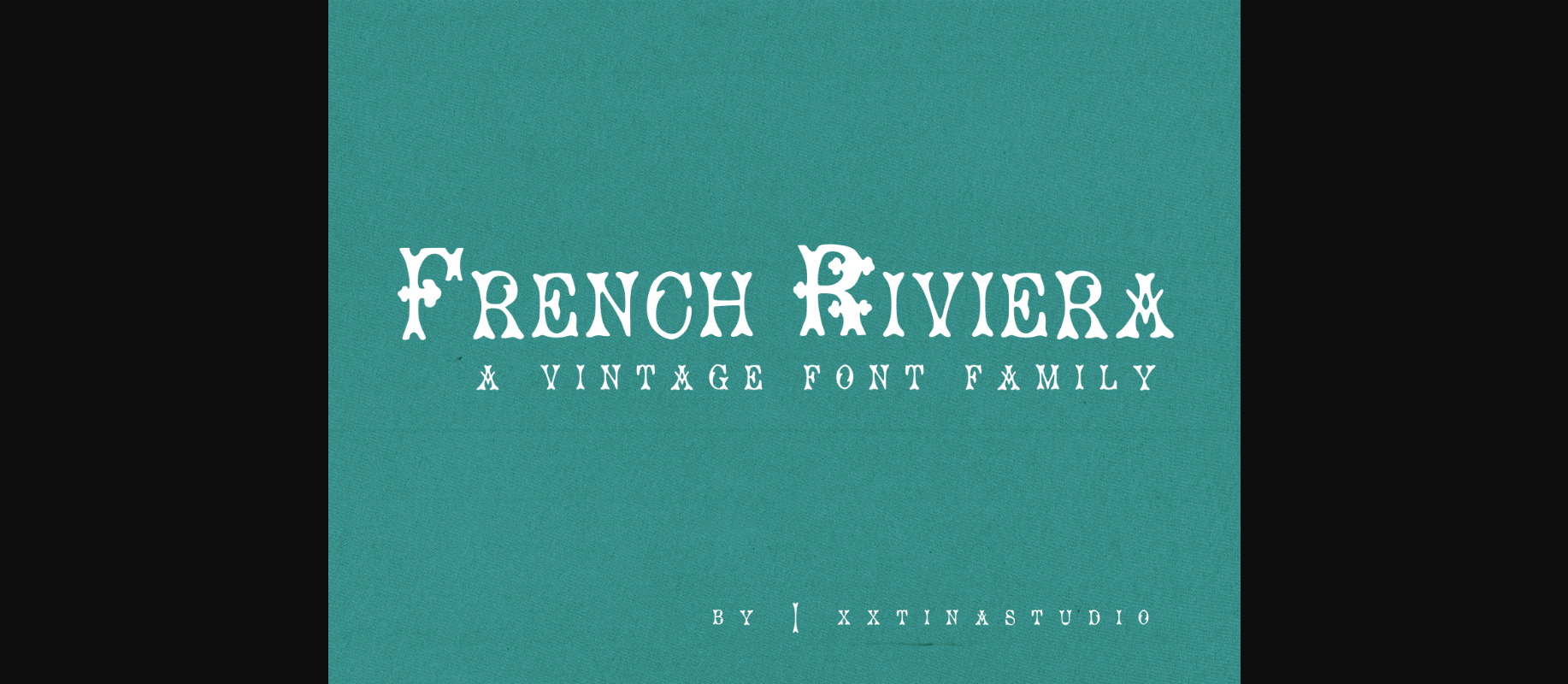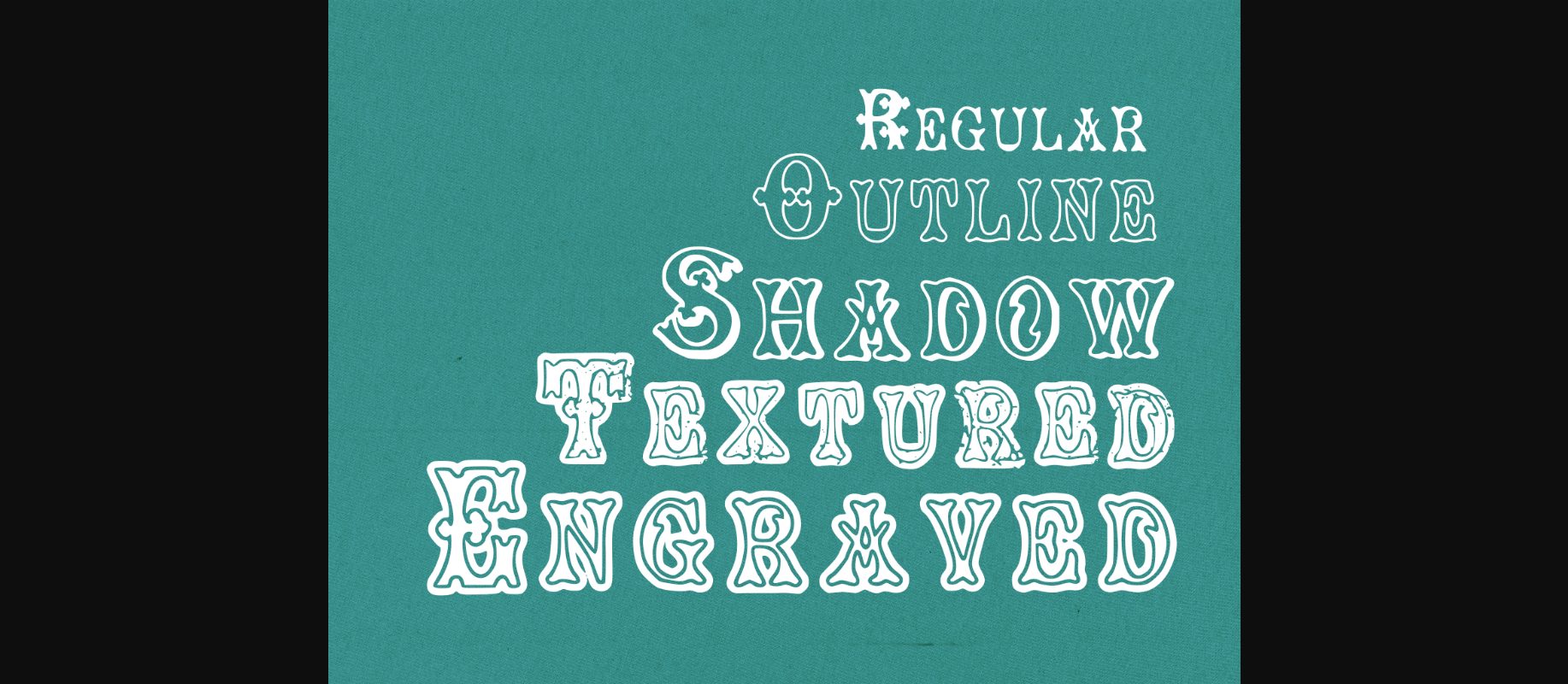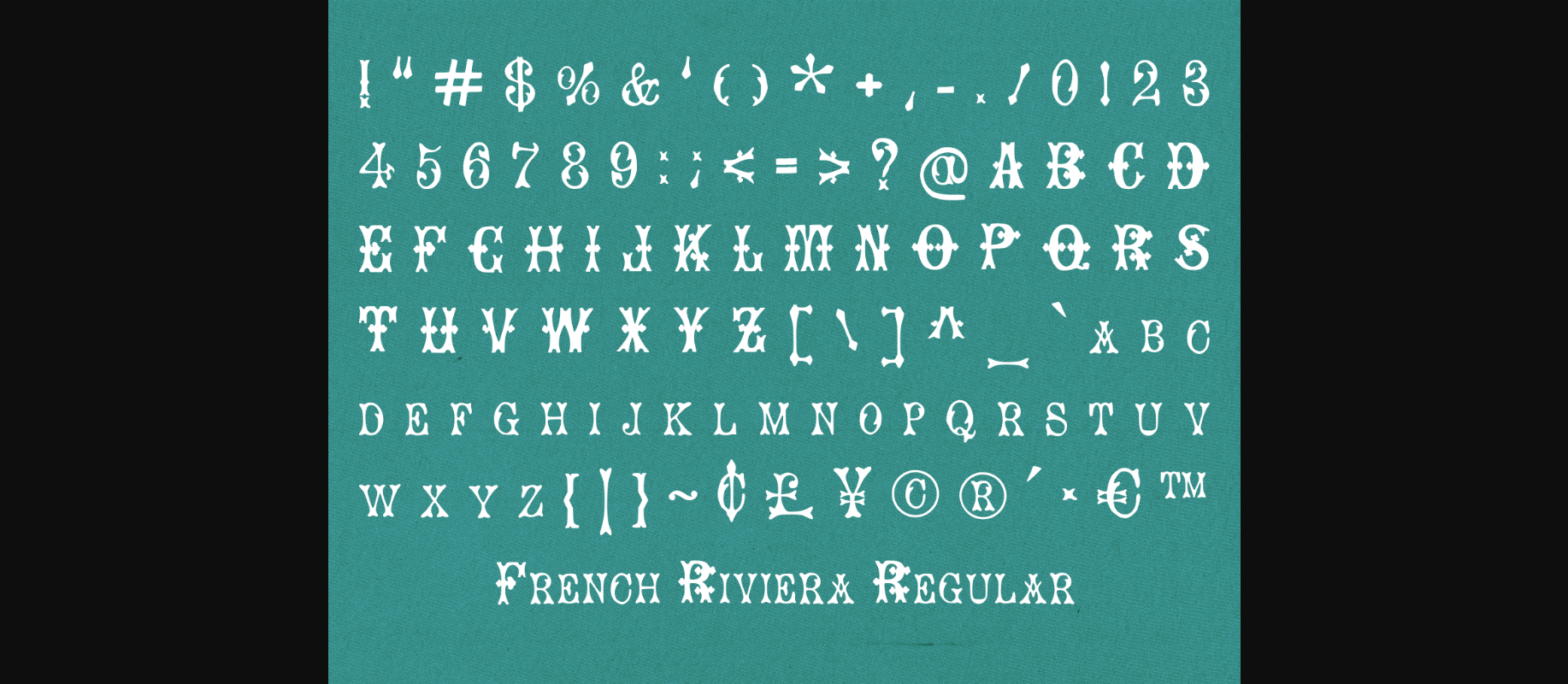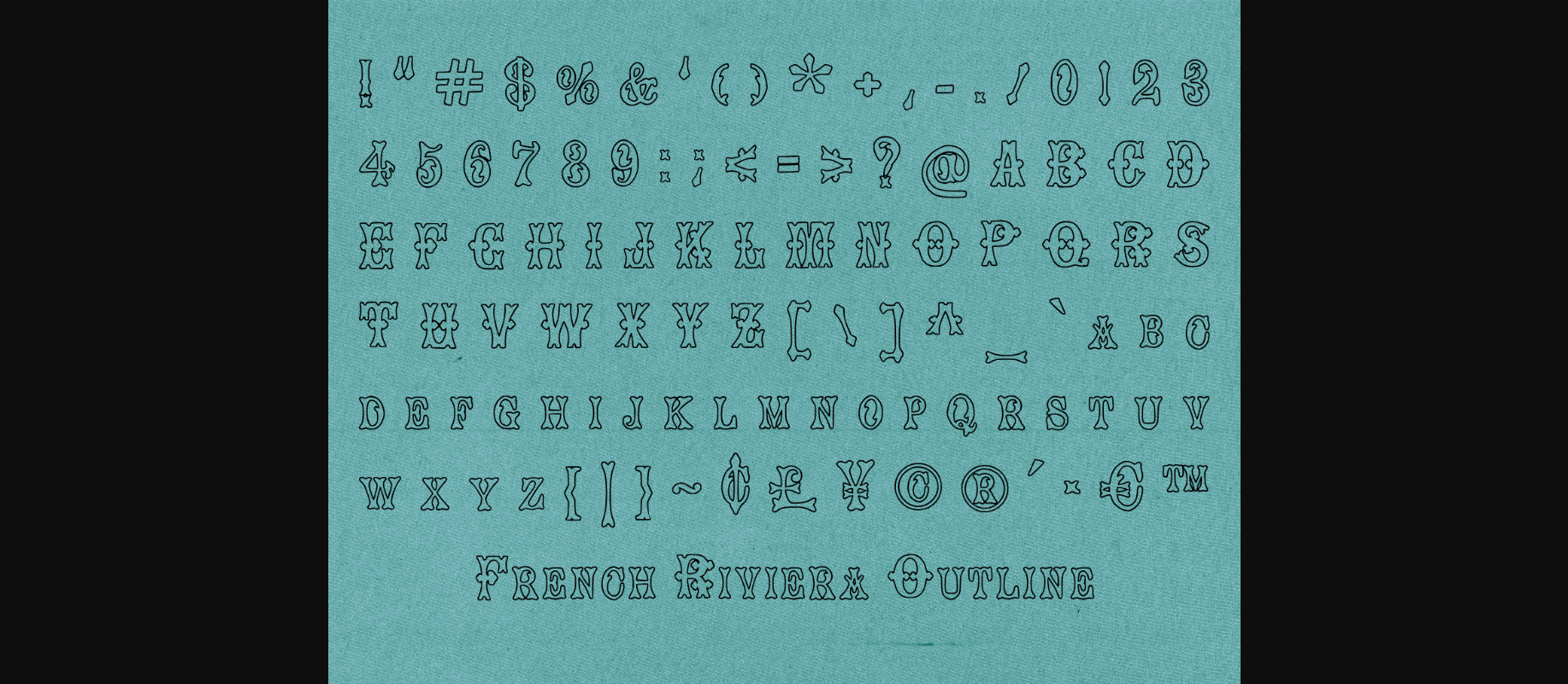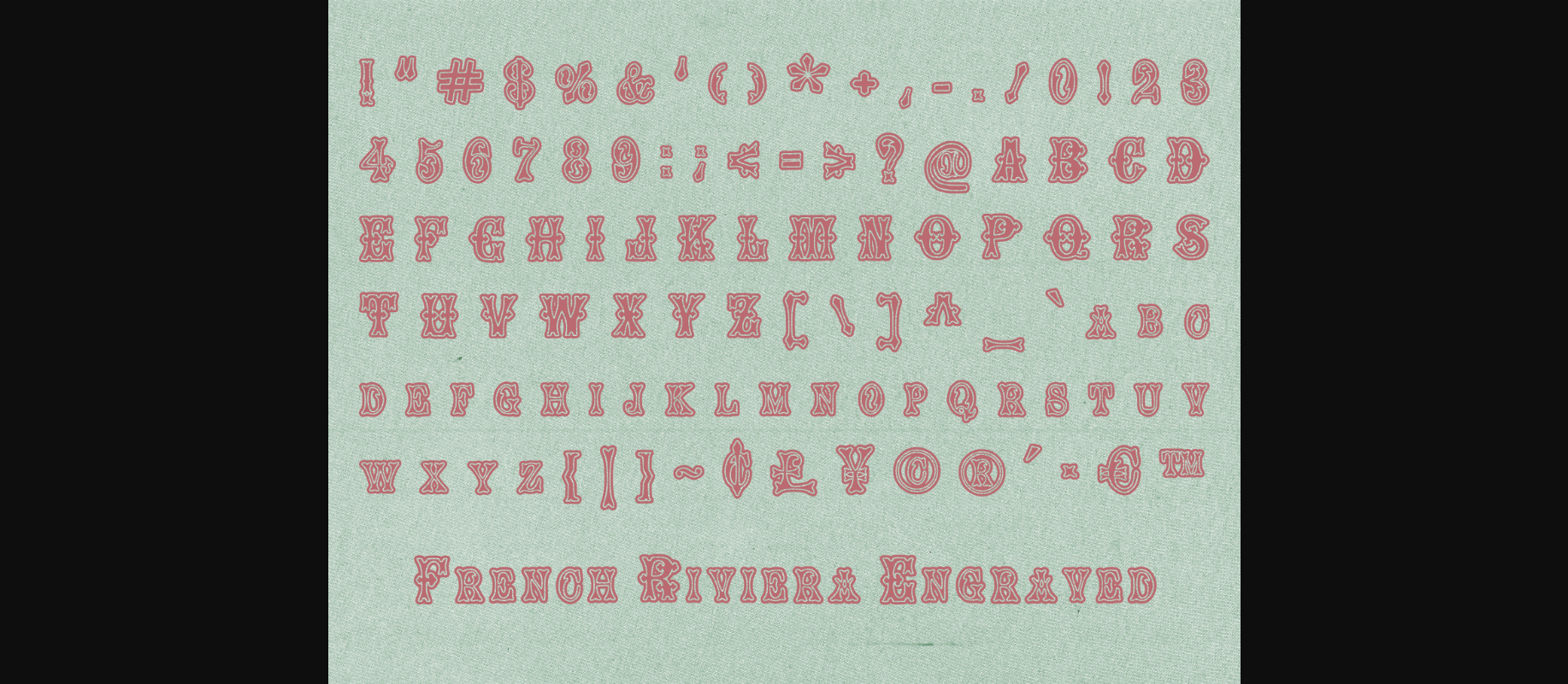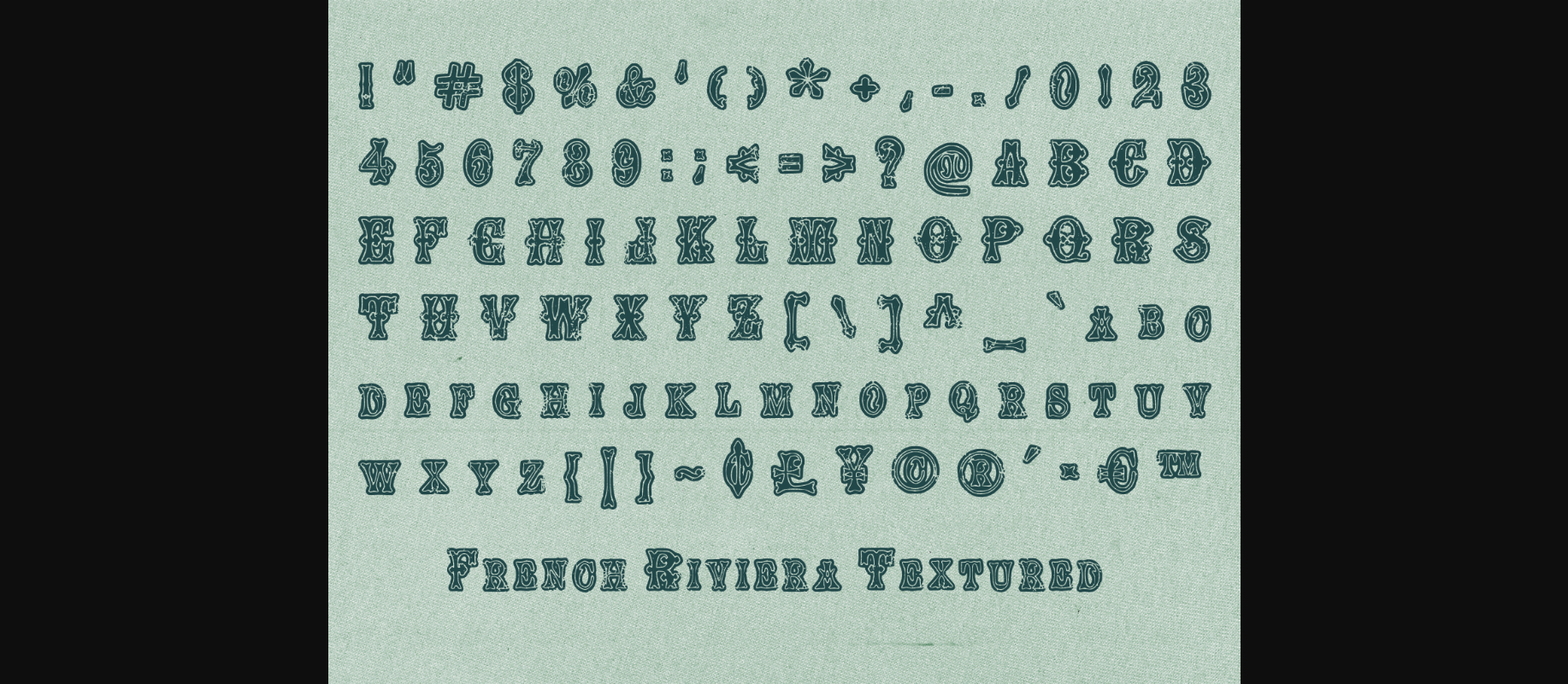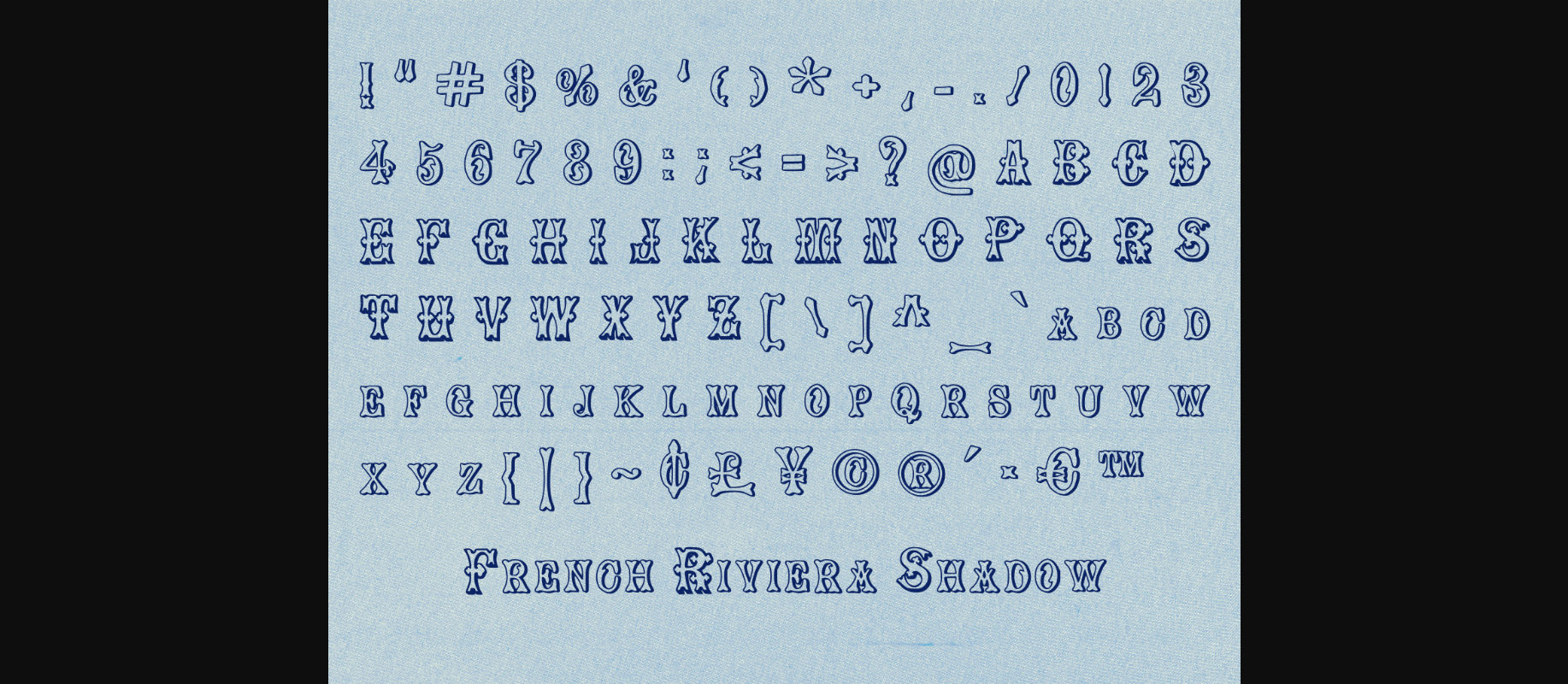
About French Riviera Font
French Riviera is a vintage display font. Is notable in French sign lettering seen in the past centuries. It is versatile display font perfect for giving your designs an antique, elegant flare.